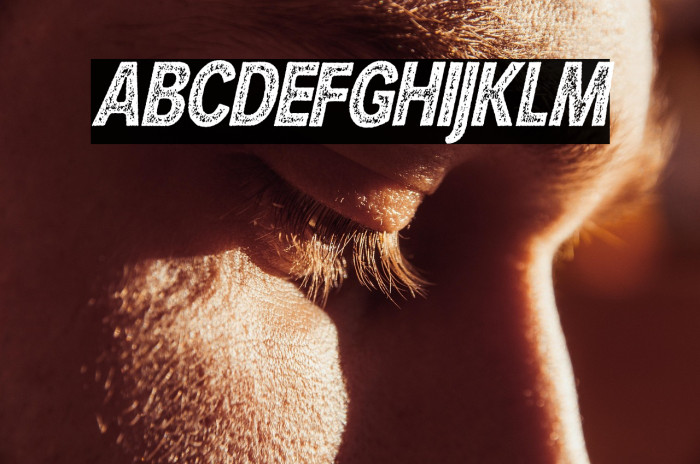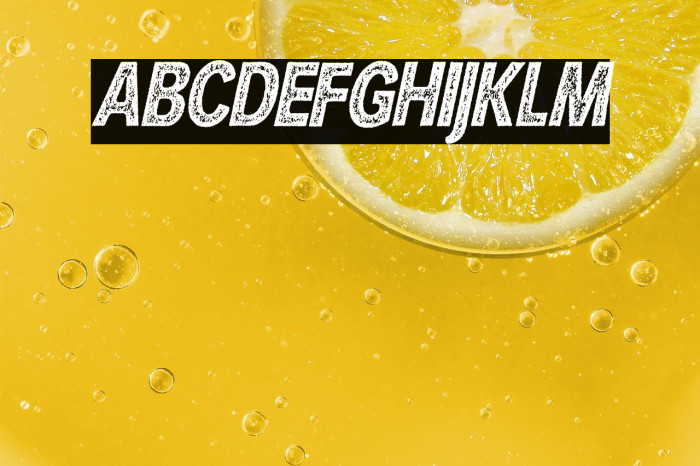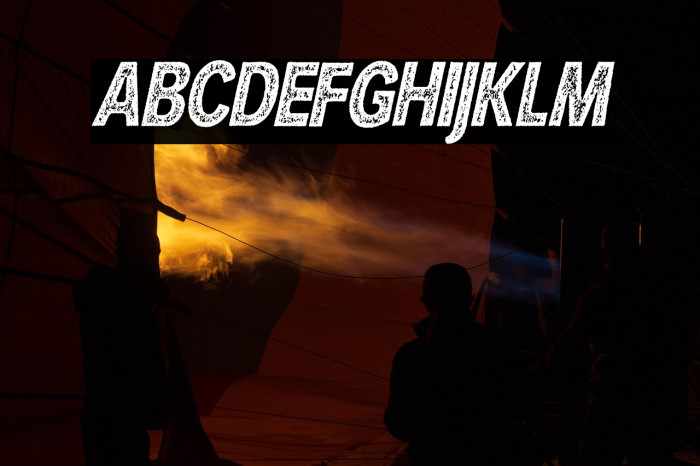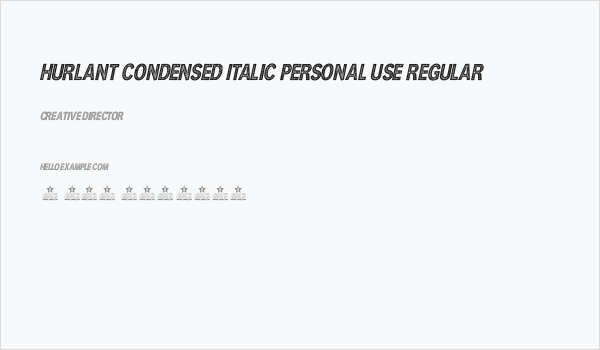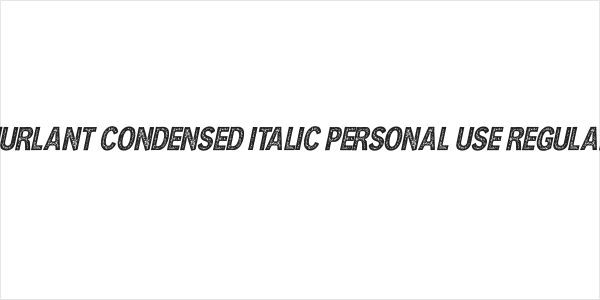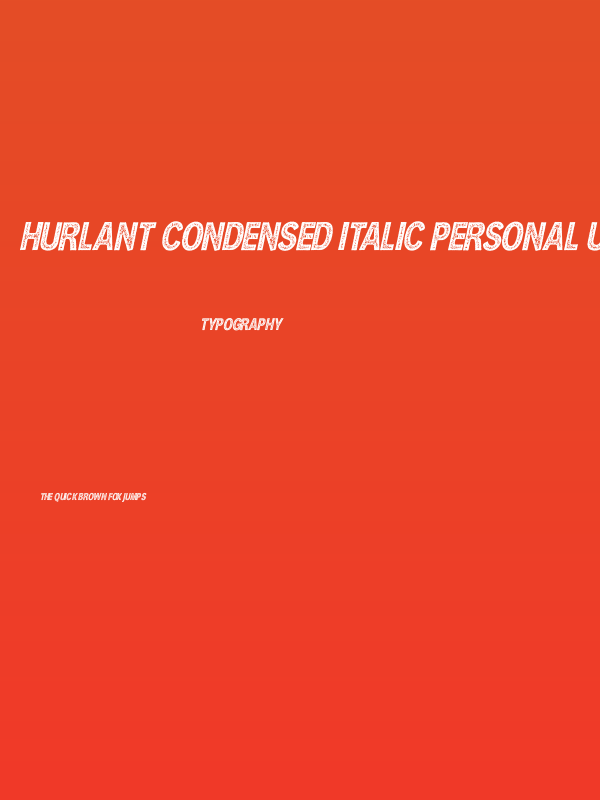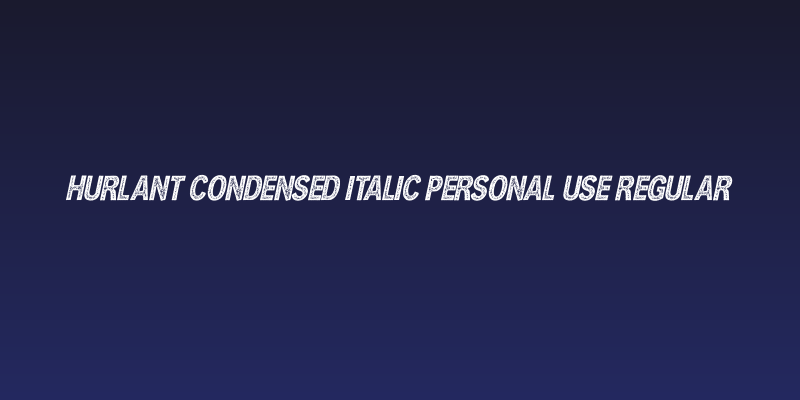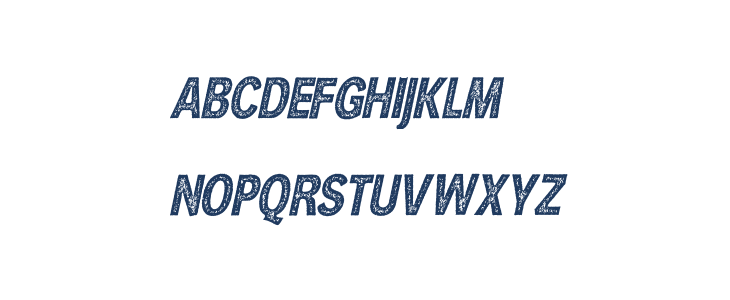
HURLANT CONDENSED ITALIC PERSONAL USE Regular Font
HURLANT CONDENSED ITALIC PERSONAL USE Regular Description
This font features a bold, condensed style with a distinct italic slant, giving it a dynamic and energetic appearance. The letters are heavily textured, resembling a distressed or grunge effect, which adds a rugged and edgy feel. The uppercase letters are prominent and impactful, making them suitable for attention-grabbing headlines or titles. The overall design is modern and expressive, with a unique character that stands out in any design context. The texture within the letters creates a sense of movement and depth, enhancing its visual appeal.
| Proposed Projects | Ideal for posters, album covers, branding projects, and any design that requires a bold, expressive typeface. |